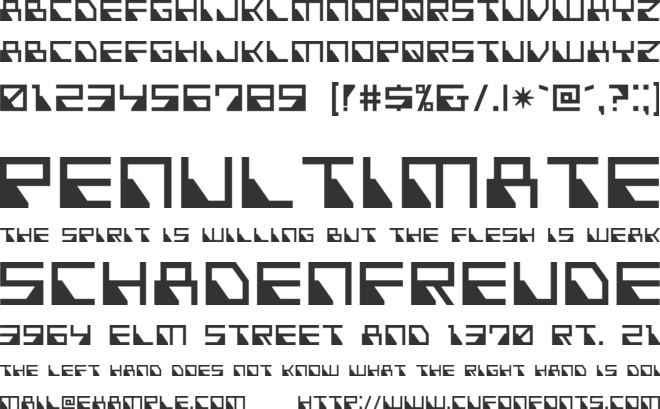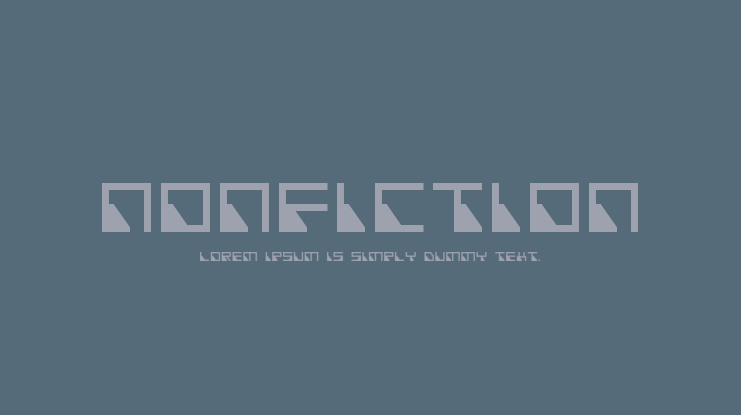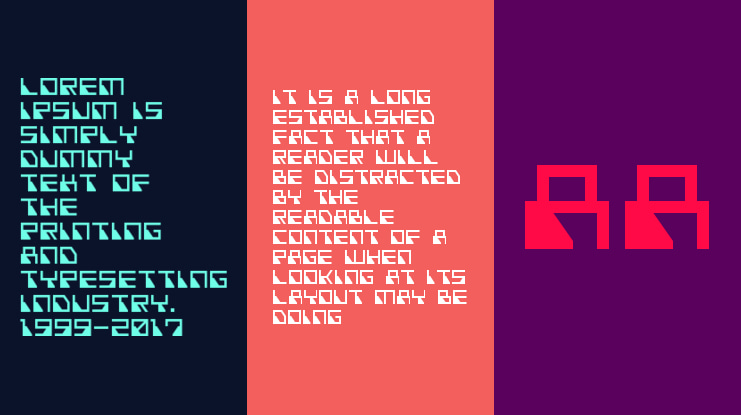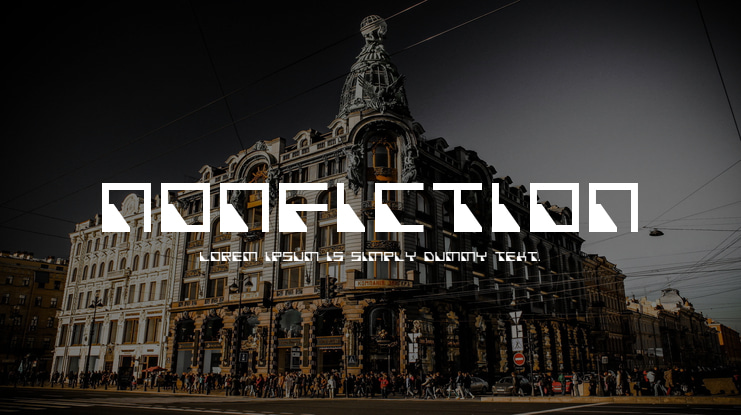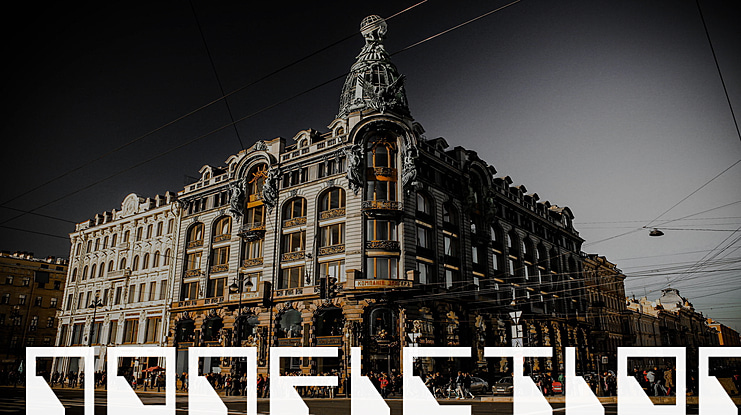
Nonfiction Font
Back to the 80'ies! With this font I've tried to bring that 1980'ies feeling back...you know, when you spend all your money playing the arcade games...This font would fit perfectly in one of those alien-shoot-'em-up-games!